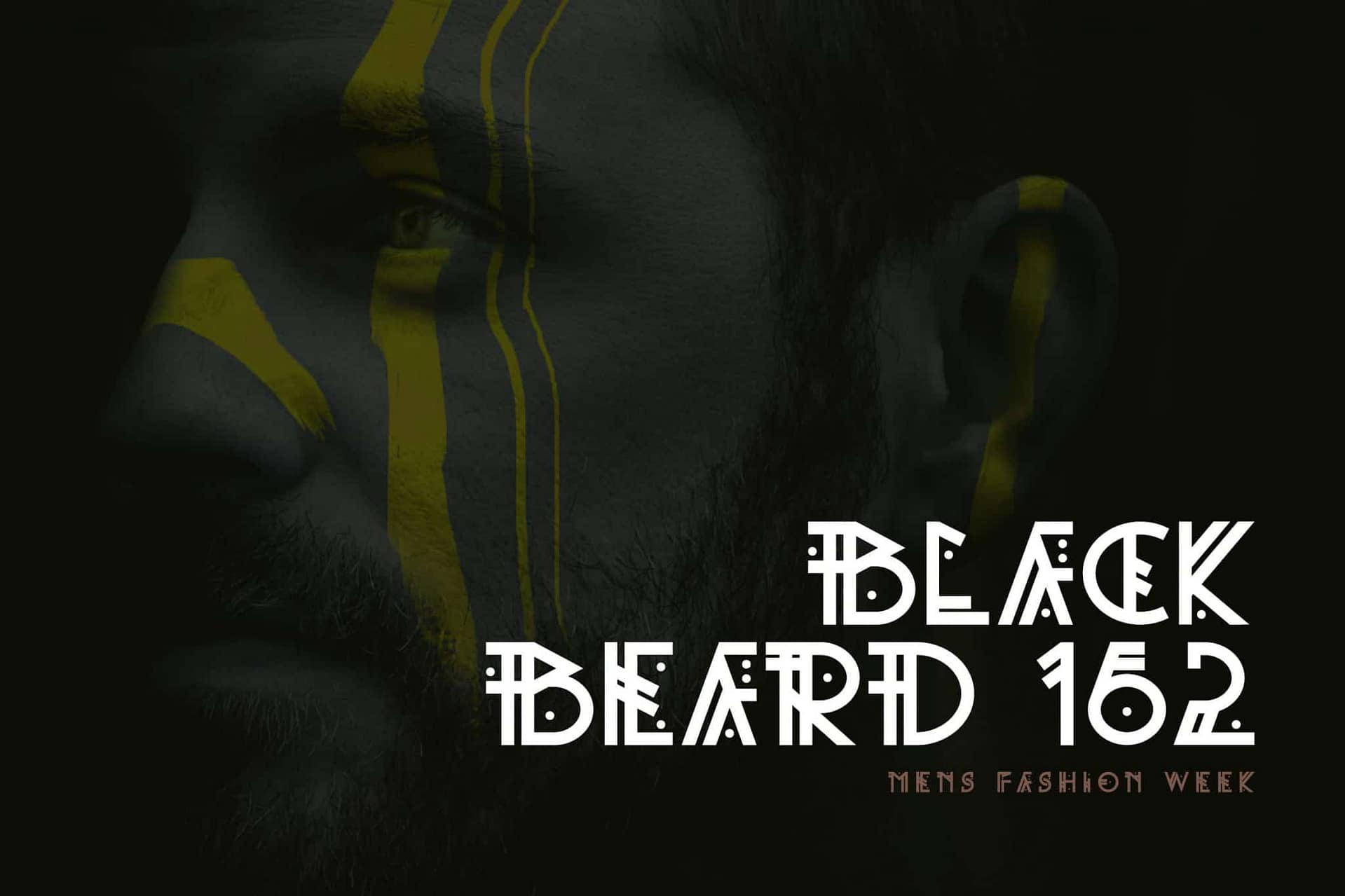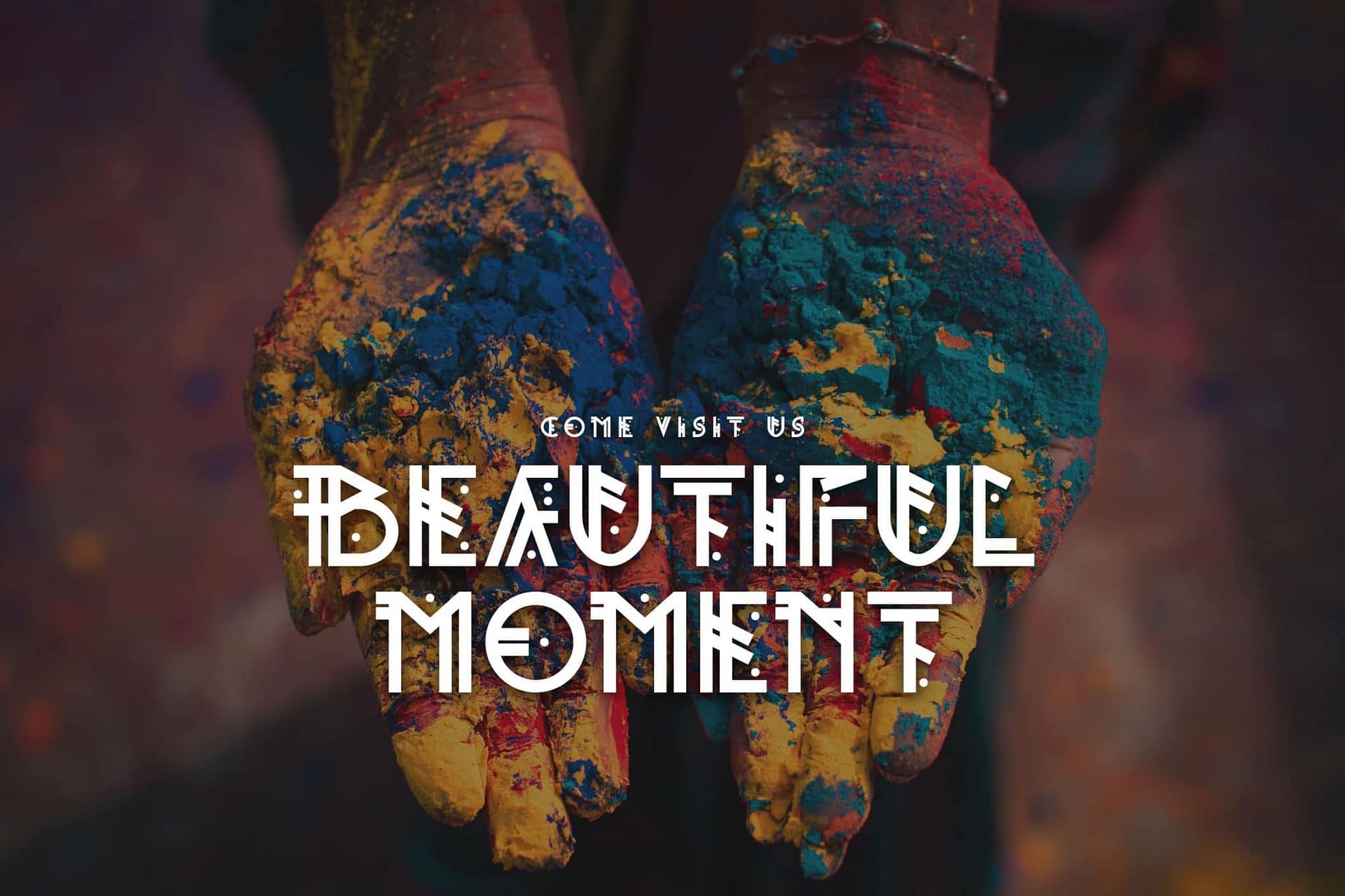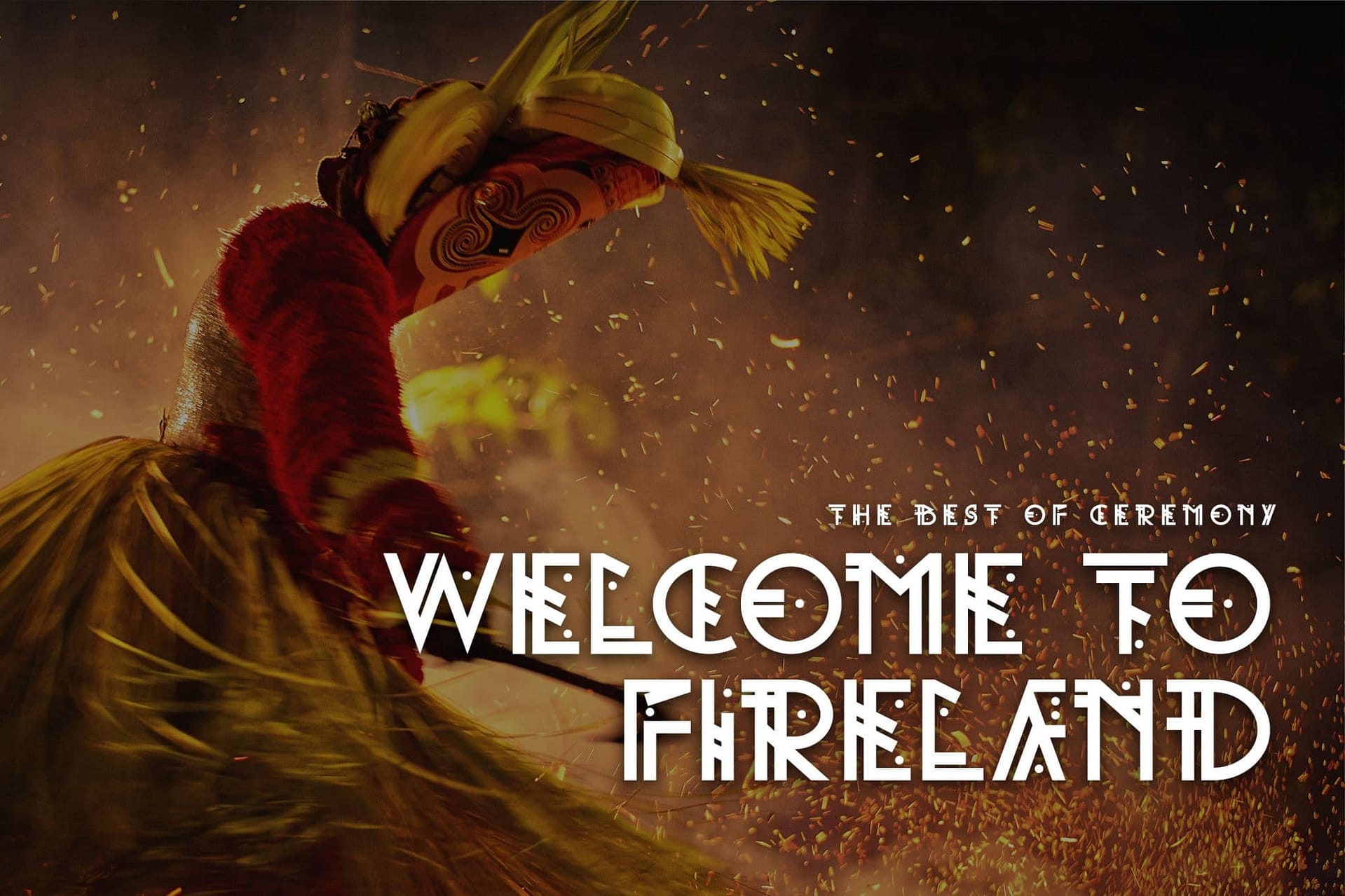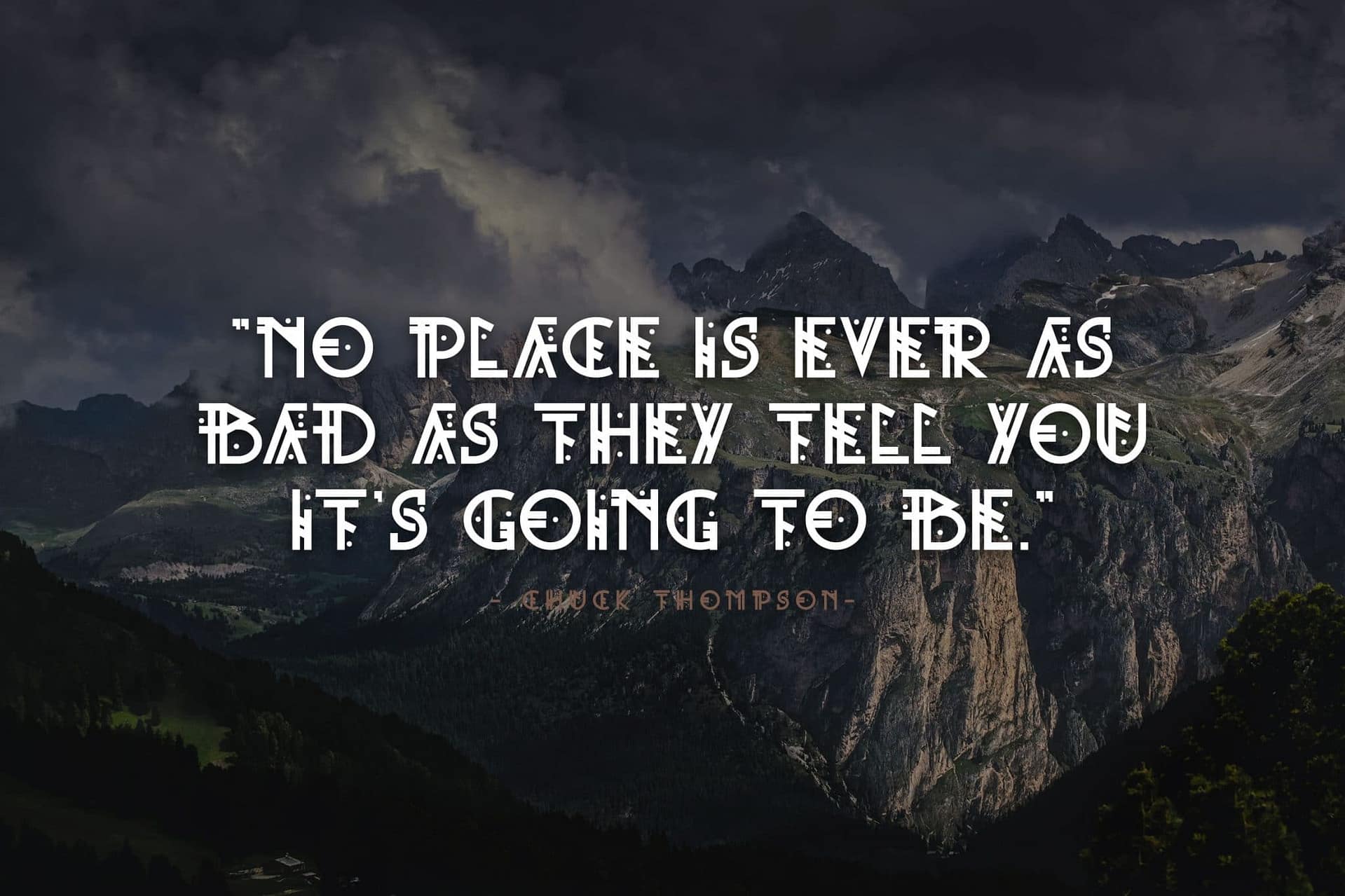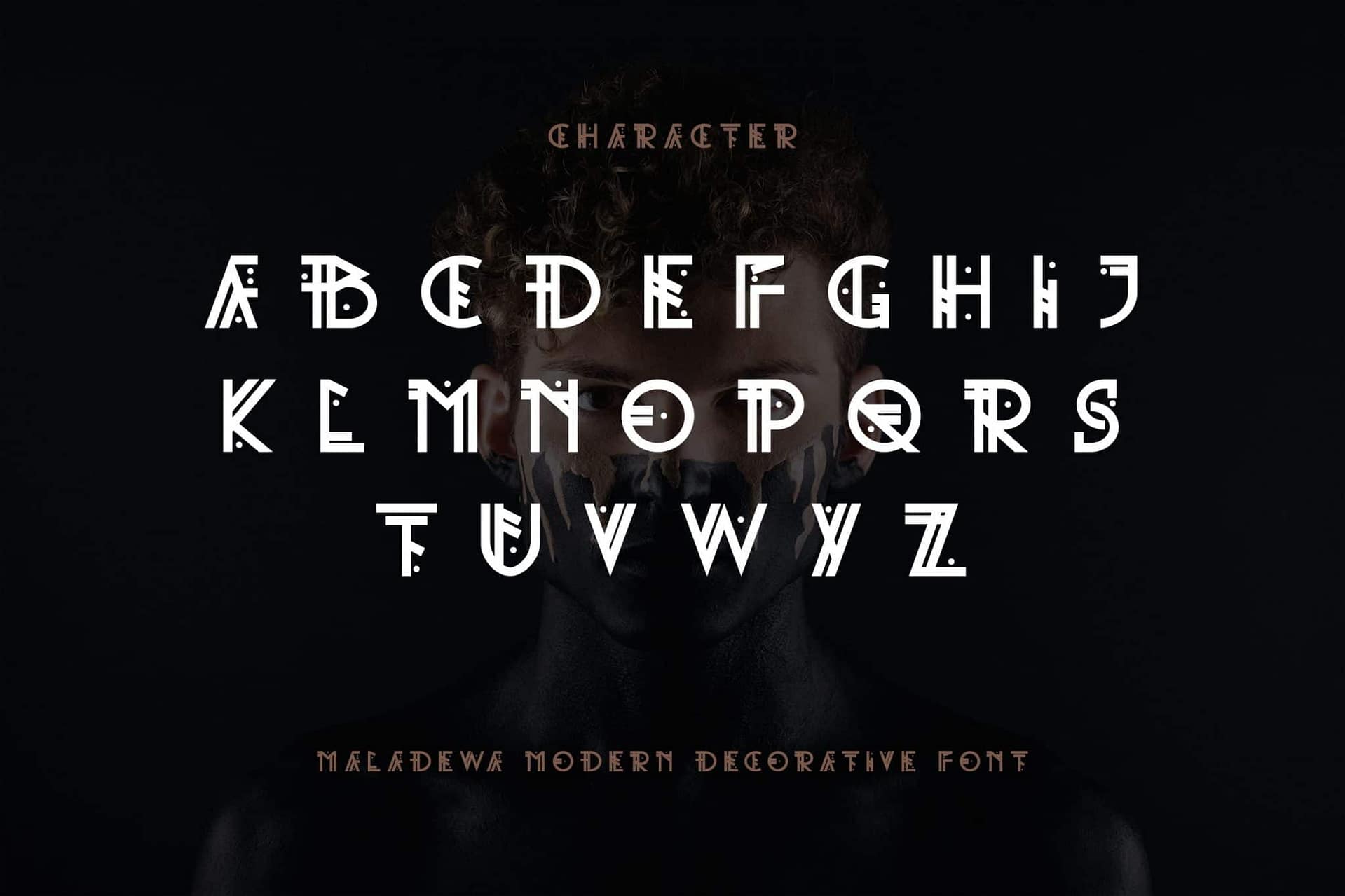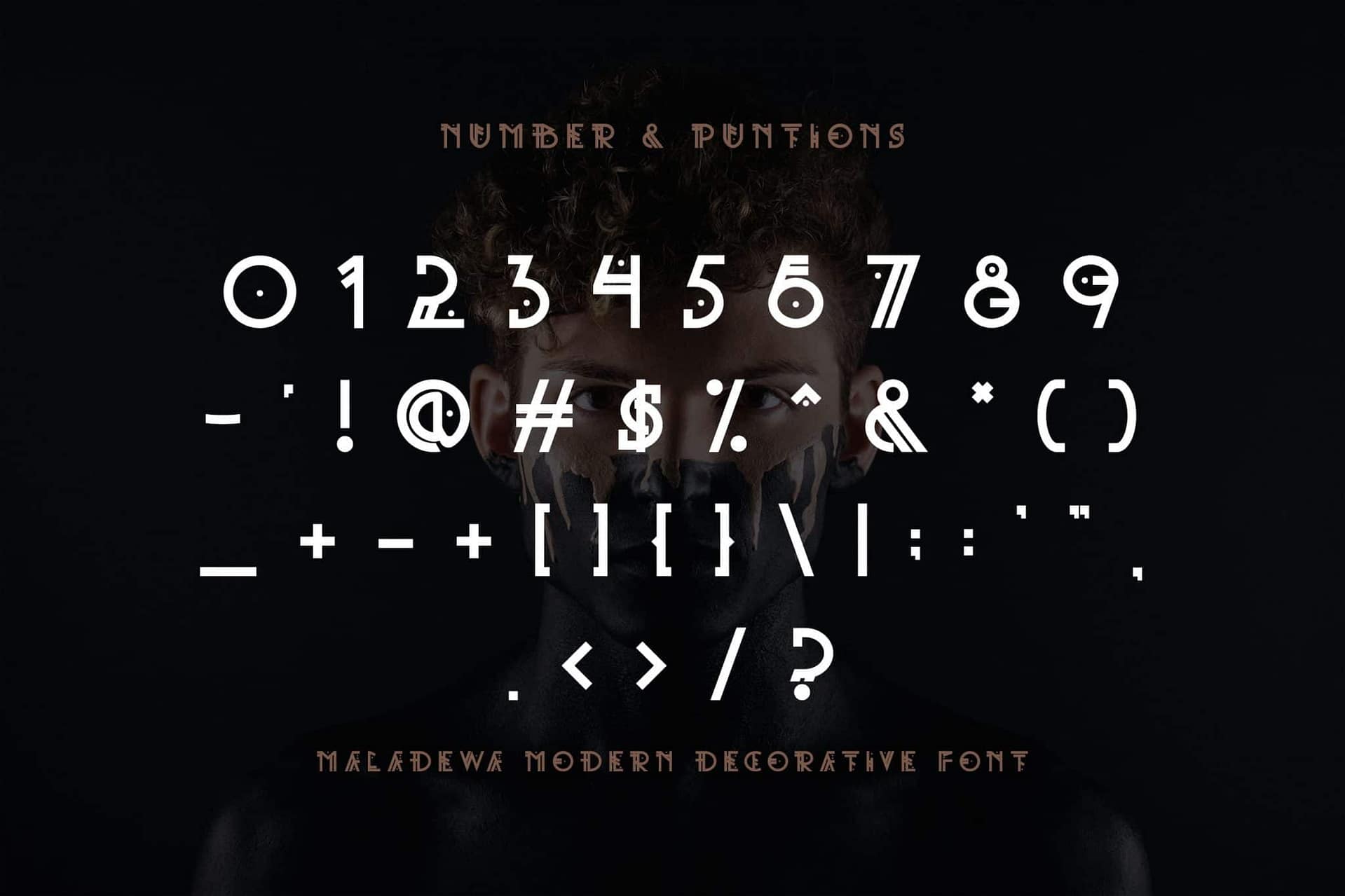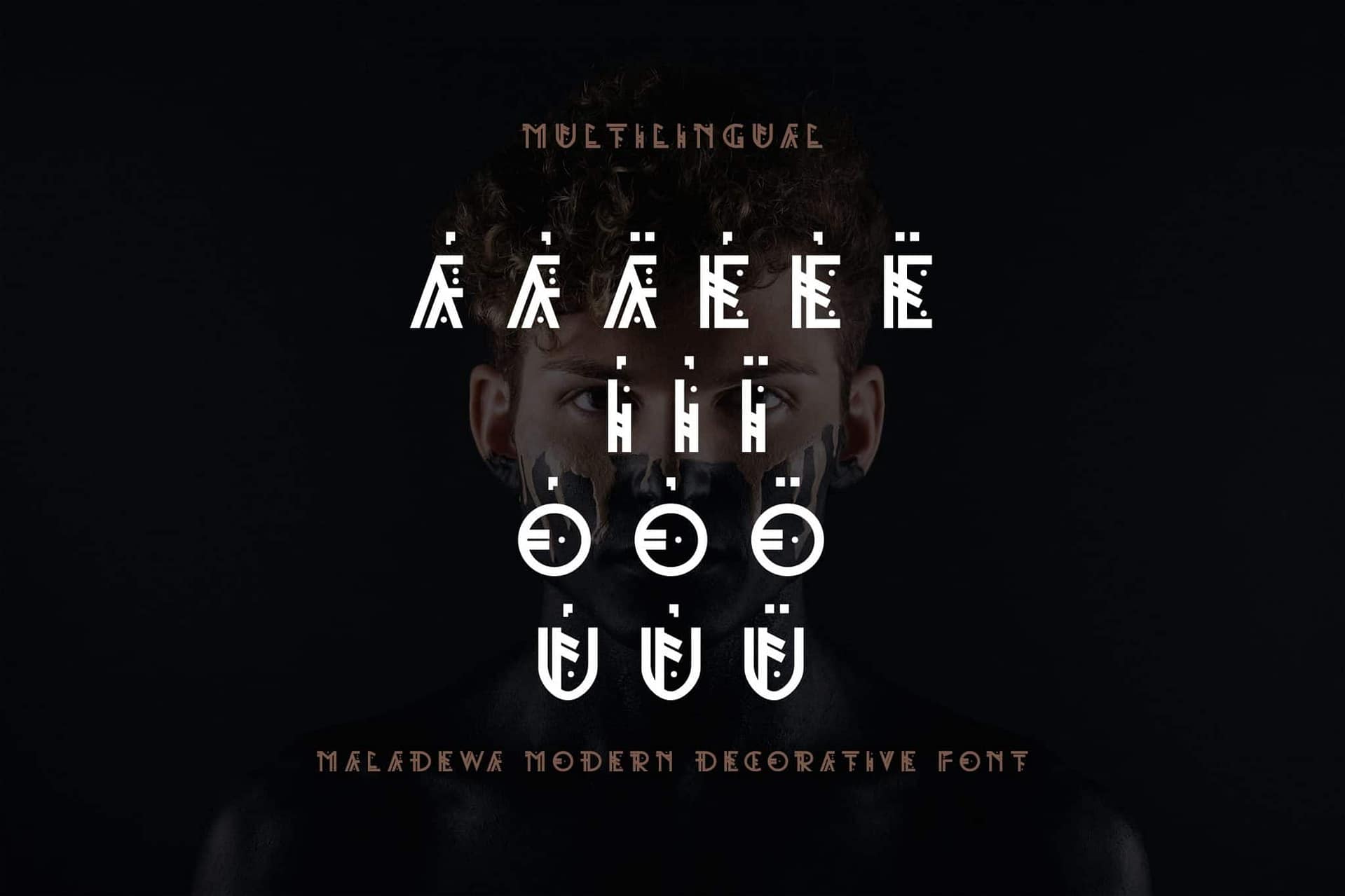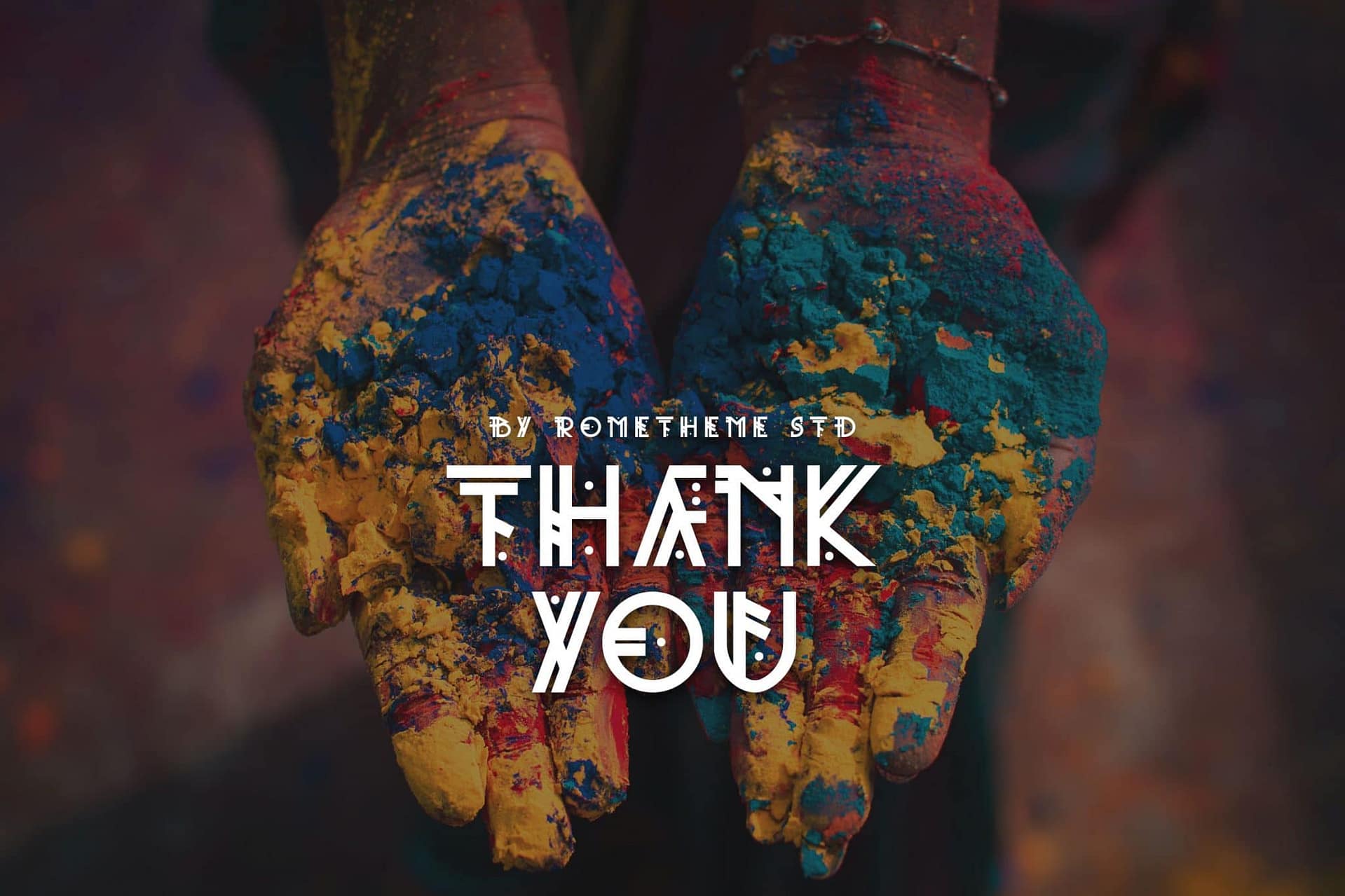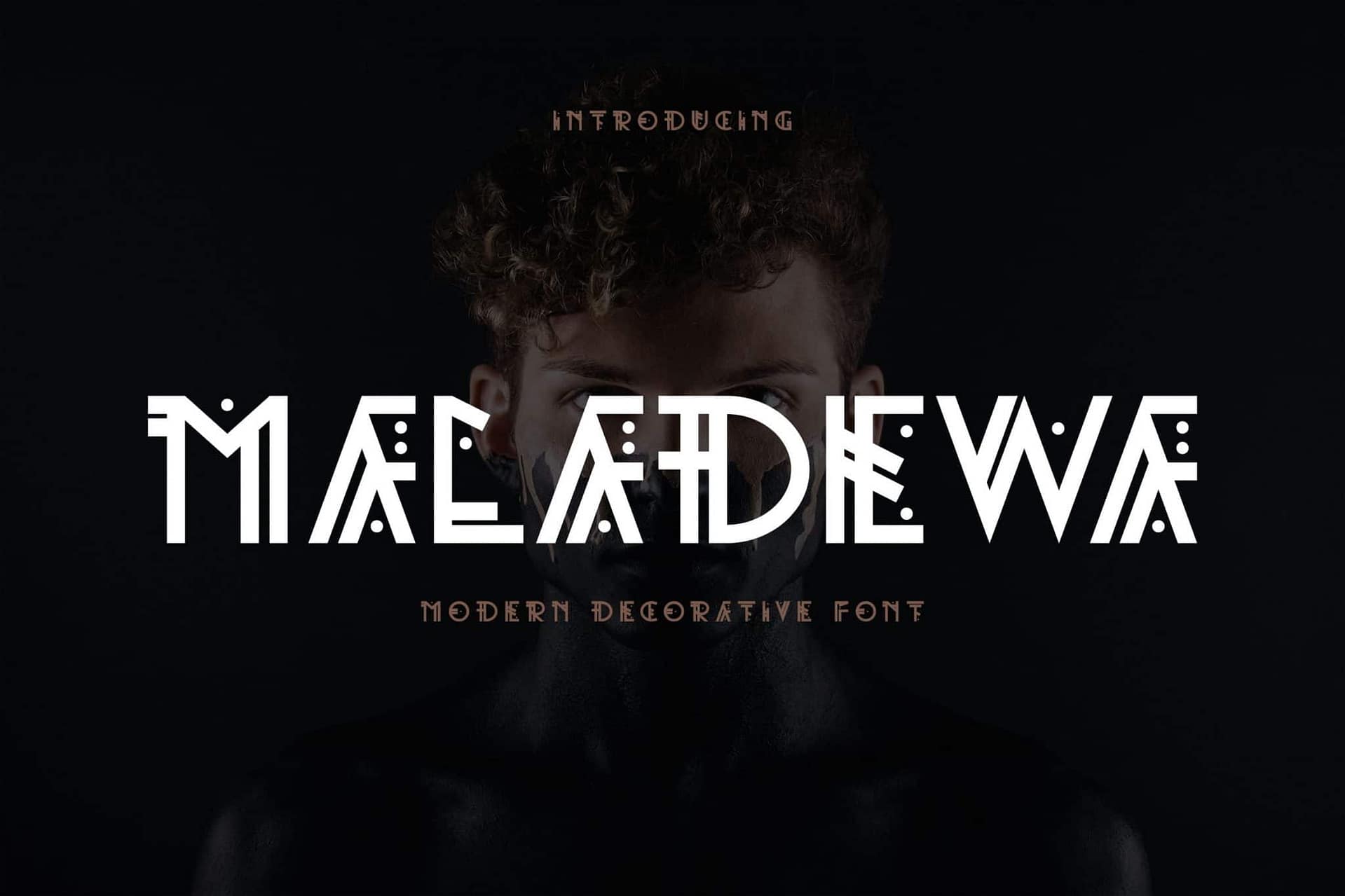
Maladewa is a modern decorative font. It has elegant, minimal, classy, and modern. Itโs a great font for fashion, apparel projects, signature, album cover, logo, branding, magazine, social media, & advertisements, but also works great for other projects.
- Basic Latin A-Z and a-z
- Numbers
- Punctions